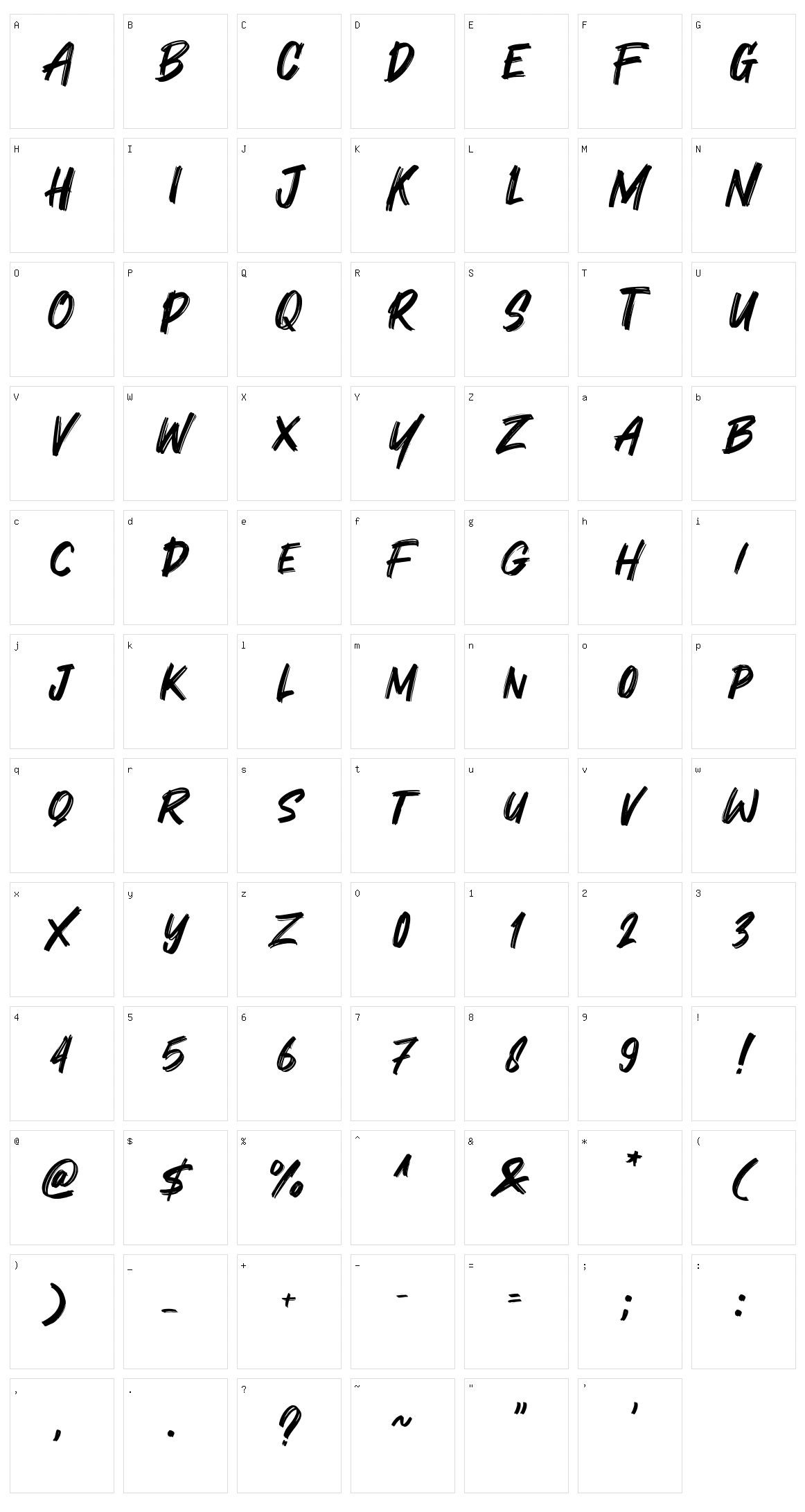
The free font Cooldex is carefully designed by Khurasan, showcasing a thoughtful balance of creativity and usability and falls under the Script font style. When you download the ZIP file, it contains only 519.9 KB of font files, making it lightweight and quick to download. Please review the license details below to understand permitted usage and distribution rights. If license information is not available, we recommend using this font for personal projects only or contacting the author directly for commercial usage permissions.